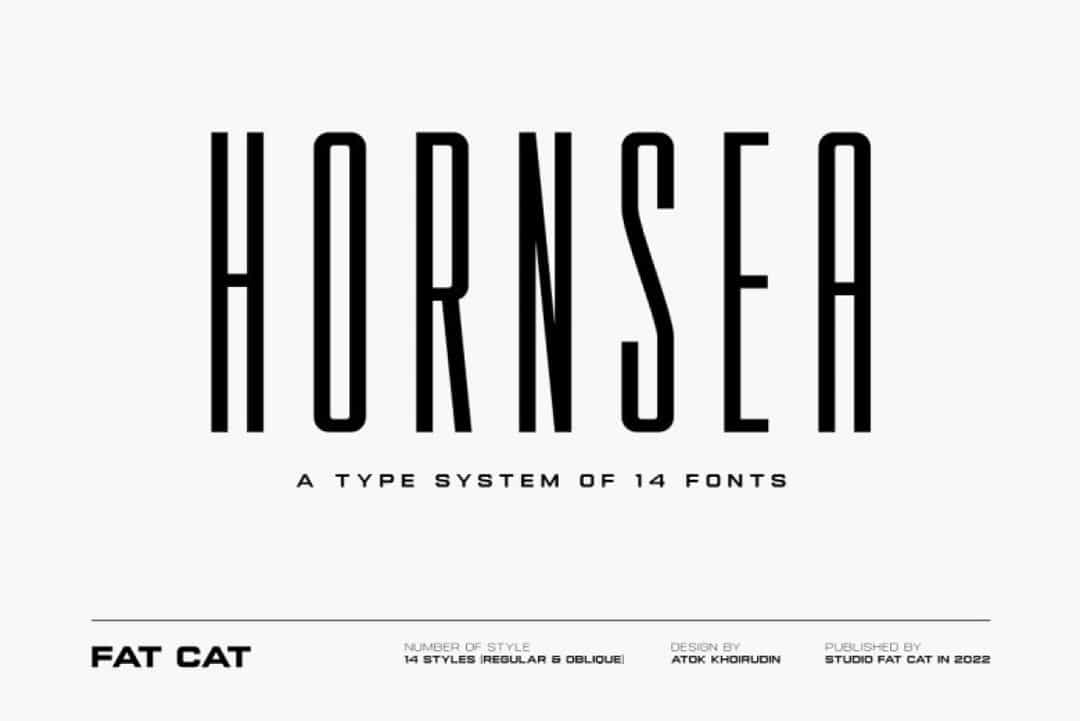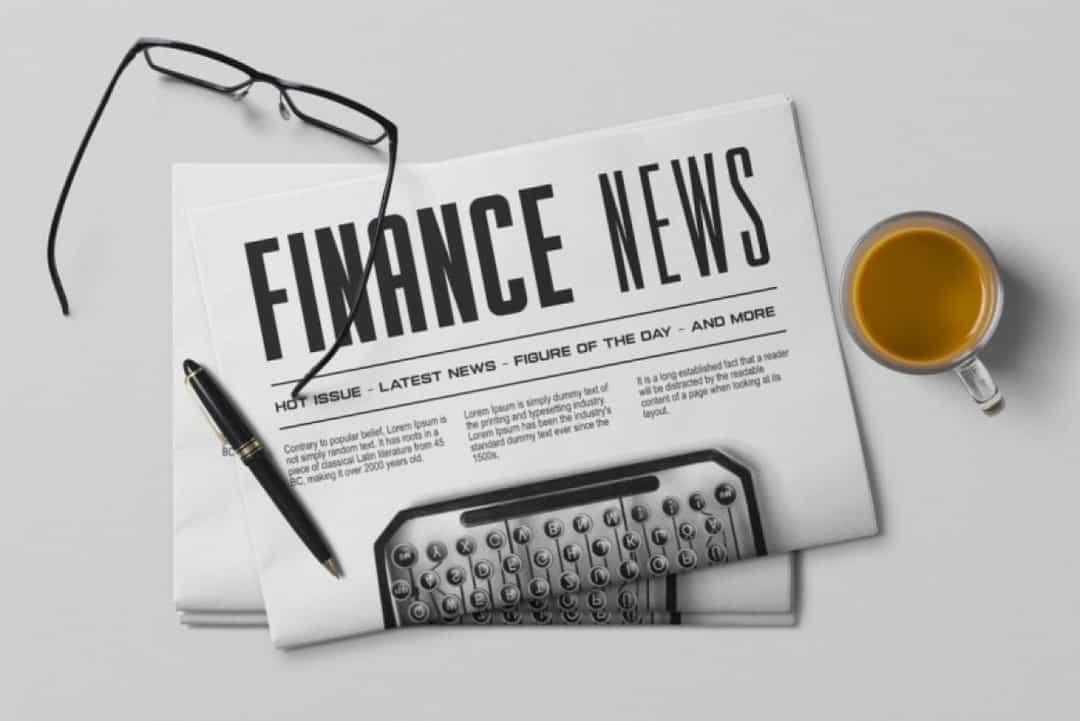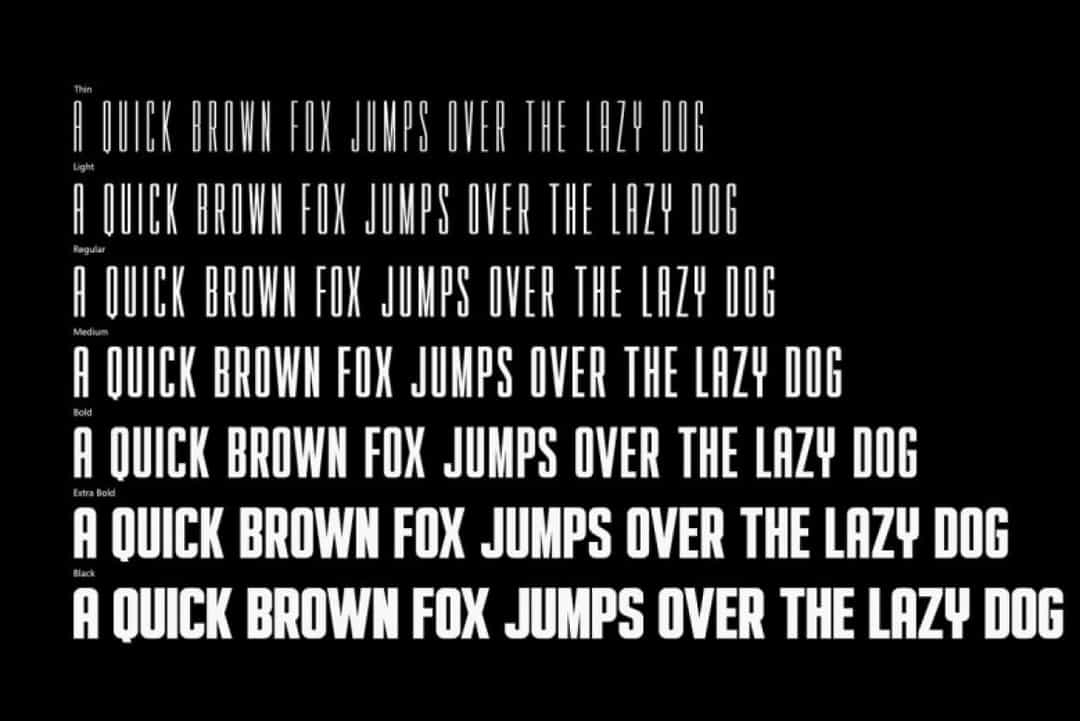
Hornsea FC is an impressive and heavy display sans serif font family, suitable for any branding endeavor like T-shirt printing, logo designs and sporting designs – it stands out with its large size in multiple settings and can even be considered an intimidating presence in some environments.